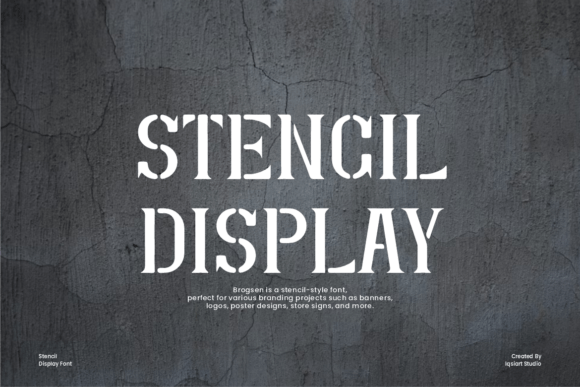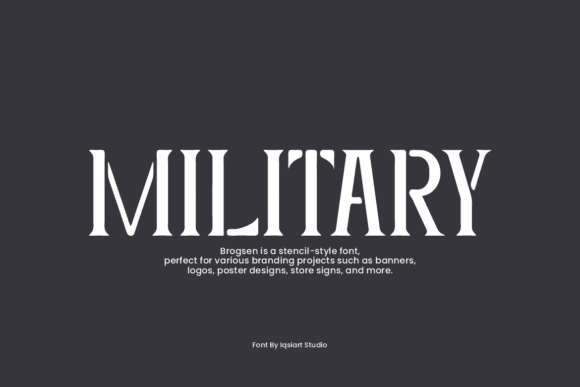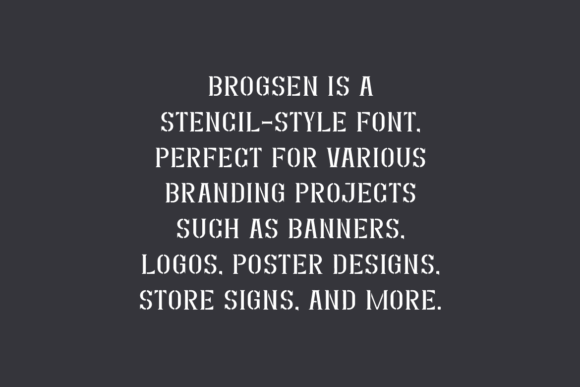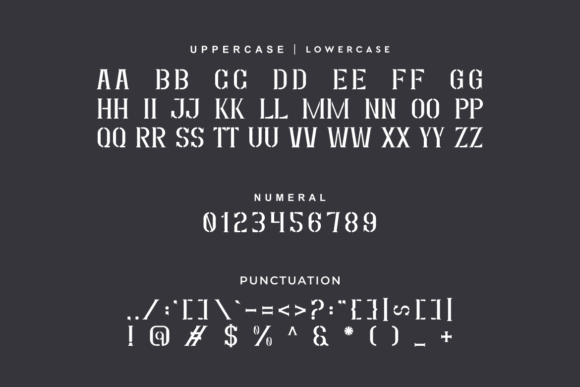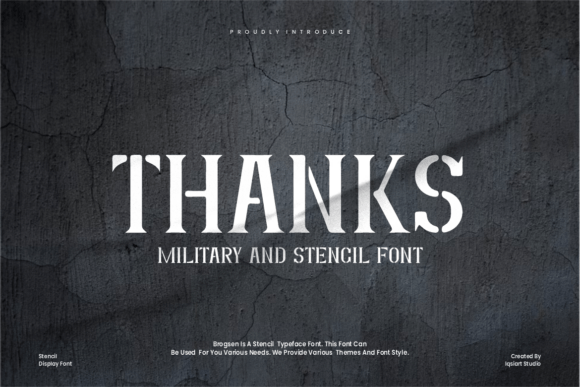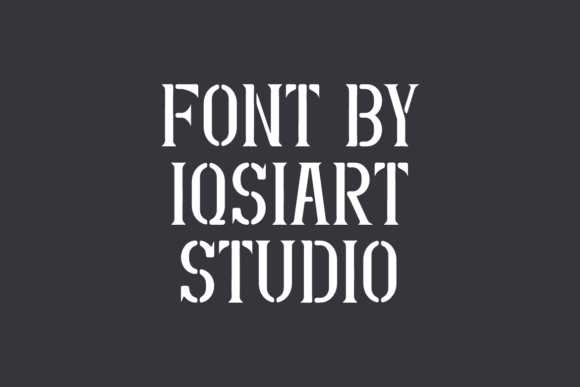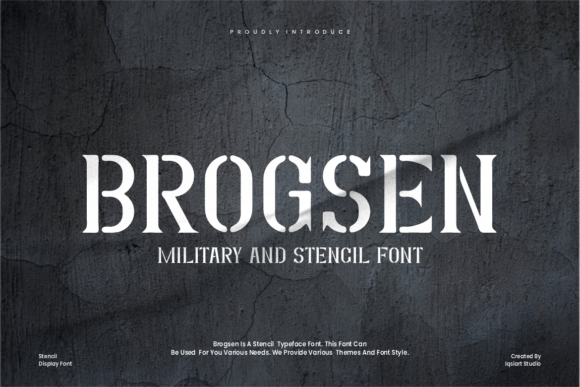
The Power of Brogsen Font: A Designer’s New Best Friend
I still remember the design project that led me to discover the Brogsen font. I was working on a branding project for a outdoor gear company, and I needed a font that could convey a sense of ruggedness, durability, and adventure. After hours of searching through font libraries and trying out different combinations, I stumbled upon Brogsen. Its unique blend of military ruggedness and refined serifs immediately caught my attention, and I knew I had found the perfect fit.
An Honest Review of Brogsen Font
- ✨ Unique blend of ruggedness and sophistication: Brogsen’s stencil breaks and flared serifs make it stand out from other display fonts.
- ✅ High versatility: This font can be used for a wide range of projects, from military-themed designs to durable product branding and striking video game titles.
- 💯 Authority and presence: Brogsen’s structure and classic stencil breaks give it a serious, commanding presence that’s hard to ignore.
While Brogsen is an amazing font, it’s not perfect. Here are a few things to keep in mind:
- 🤔 Limited use for body text: Due to its stencil design and flared serifs, Brogsen is best used for display purposes. It may not be the best choice for longer blocks of text.
The Backstory of Brogsen Font
Brogsen font was inspired by the rugged, industrial aesthetic of military typography. Its designer wanted to create a font that could convey a sense of strength, authority, and durability, while also being refined and sophisticated. The result is a font that’s perfect for designs that require a tough, vintage aesthetic.
Q: What is Brogsen font best used for?
A: Brogsen font is best used for display purposes, such as military-themed designs, durable product branding, striking video game titles, and strong apparel.
Q: Is Brogsen font suitable for body text?
A: No, Brogsen font is not suitable for body text due to its stencil design and flared serifs. It’s best used for display purposes.